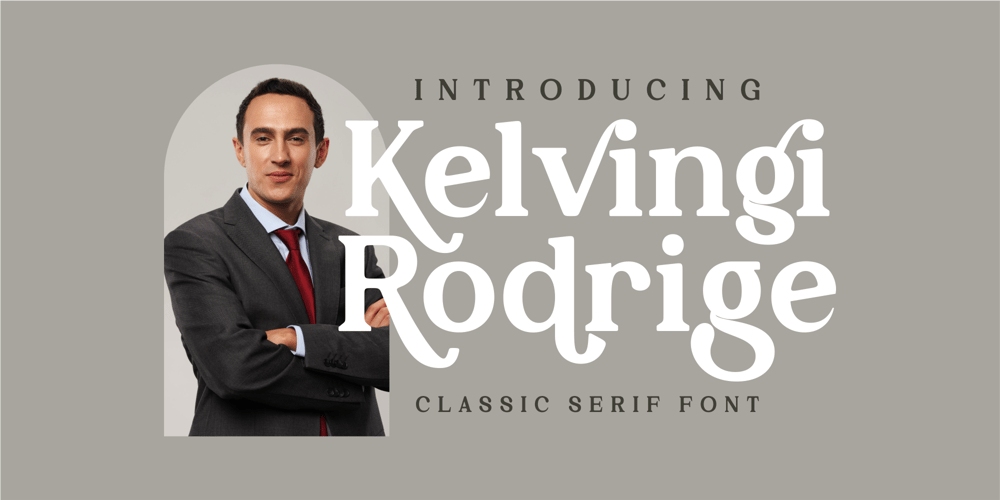
Kelvingi Rodrige Font Family was designed by Heru Utama Putra and published by Letterena Studios. Kelvingi Rodrige contains 2 styles and family package options. Hi, Everyone! If you’re looking for a gorgeous font to attract your audiences or customers then we’ve got the font for you!Introducing Kelvingi Rodrige – A Serif FontThis handmade font typeface with modern style looks very interesting for loads of different projects and promotions. It is perfect to be used on your website, for your social media branding, Pinterest banners, printed products, and more!Features: Multilingual Support Ligatures Alternates PUA Encoded Numerals and Punctuation